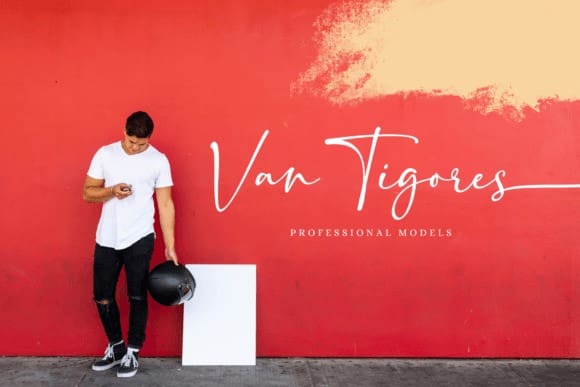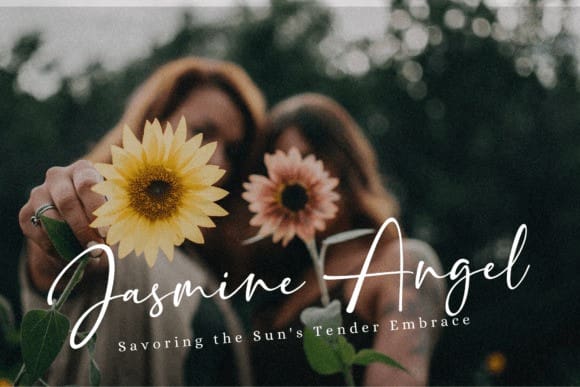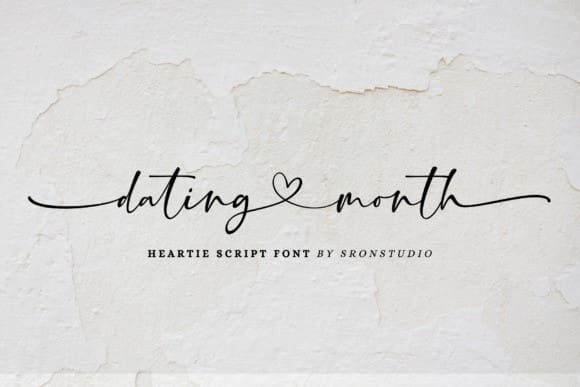
Dating Month Font
Dating Month Font, a charming romantic font that encapsulates the essence of love and affection. This font is designed to evoke emotions of warmth and tenderness, making it the perfect choice for projects that celebrate love, relationships, and special occasions.